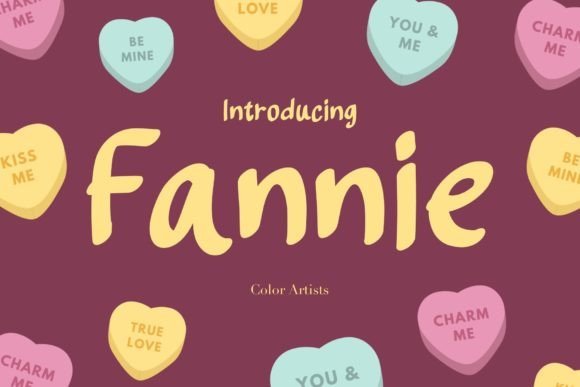
Unleashing the Timeless Elegance of Fannie Font
Have you ever been working on a design project, pouring your heart and soul into every detail, only to feel like something’s missing? That’s when the magic happens – you stumble upon the perfect font to elevate your design to new heights. For many designers, that perfect font is Fannie Font, a typeface that exudes elegance and sophistication.
Fannie Font is more than just a pretty face; it’s a carefully crafted tool designed to add a touch of timeless charm to your design projects. With its graceful curves and refined letterforms, Fannie Font is the perfect choice for designers seeking to create a lasting impression. Whether you’re working on a high-end branding project or a elegant wedding invitation, Fannie Font is the perfect addition to your design arsenal.
Fannie Font Key Features
- Unique Characteristics: Fannie Font features a distinctive, elegant design with a mix of modern and vintage elements, making it perfect for creative projects and branding.
- Font Style: Fannie Font is available in two styles: Regular and Bold, offering users flexibility in their design choices.
- Language Support: Fannie Font supports multiple languages, including English, Spanish, French, German, Italian, and many more, making it a great choice for global branding and design projects.
Fannie Font Review
Fannie Font is a charming, vintage-inspired typeface that can add a touch of elegance to any design project. ✨ Its unique flair and subtle imperfections make it a great choice for creating a nostalgic or antique vibe. The font’s wide range of weights and styles offer flexibility and versatility, allowing designers to experiment with different moods and atmospheres.
- Unique flair and subtle imperfections
- Wide range of weights and styles
- Charming, vintage-inspired aesthetic
However, there are some limitations to consider. ⚠️ Fannie Font may not be the best choice for projects that require a clean, modern look. The font’s imperfections can be distracting if not used thoughtfully, and its vintage vibe may not appeal to all audiences. Additionally, some characters may not be as well-formed as others, which can be a drawback for designers who value precision and consistency.
Overall, I think Fannie Font is a great addition to any designer’s toolkit, but it’s essential to use it thoughtfully and consider the project’s specific needs and goals. With careful selection and application, Fannie Font can add a touch of whimsy and personality to designs, making them stand out in a crowded market.
Tips for Getting the Most Out of Fannie Font
Use Fannie Font to add a touch of elegance and sophistication to your designs. Try pairing it with bold fonts for a striking contrast.
Fannie Font is ideal for:
- Formal event branding and marketing materials.
- High-end product packaging and labeling.
Alternatives to Fannie Font
Alex Brush is a beautiful, handwritten font ideal for use in creative and elegant designs, such as invitations, posters, and branding materials. It features a delicate, brush-like feel that adds a touch of sophistication and whimsy to any project.
Compared to Fannie Font, Alex Brush is more elegant and refined, making it suitable for high-end designs. While Fannie Font is more playful and cursive, Alex Brush is more versatile and can be used in a variety of settings.
Great Vibes is a modern, script font perfect for use in trendy and stylish designs, such as logos, signage, and advertising materials. It features a relaxed, casual feel that adds a touch of fun and personality to any project.
Compared to Fannie Font, Great Vibes is more modern and edgy, making it suitable for bold and eye-catching designs. While Fannie Font is more vintage and playful, Great Vibes is more contemporary and youthful.
Q: Is Fannie Font available in different font weights?
Yes, Fannie Font is available in several font weights, including light, regular, medium, bold, and extra bold. This allows designers to achieve a range of visual effects and emphasize certain text elements.
Q: What is the character set of Fannie Font?
Fannie Font includes a comprehensive character set that supports multiple languages, including Latin, Cyrillic, and Greek scripts. It also includes a range of punctuation marks, symbols, and special characters.